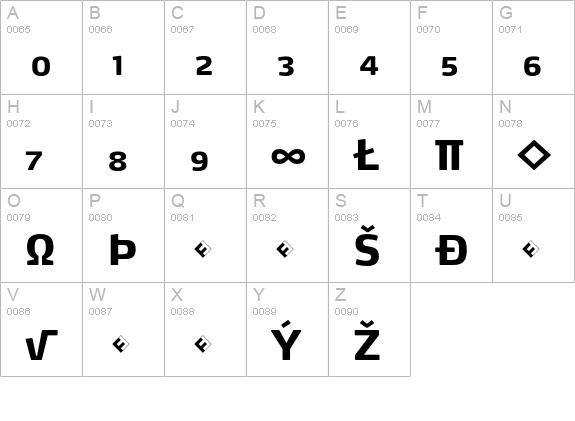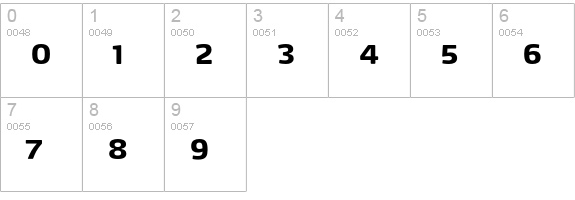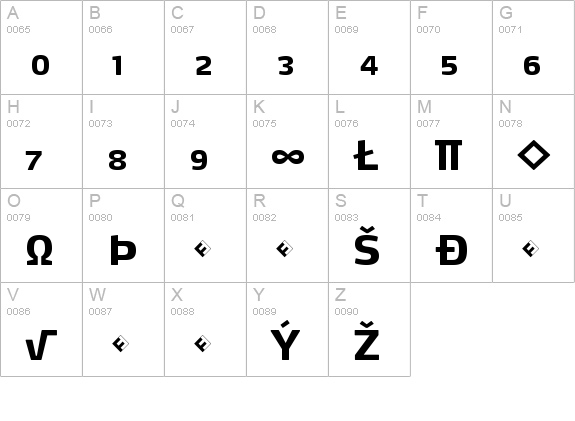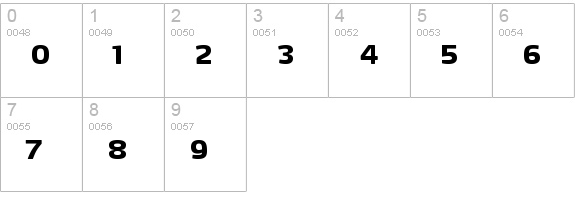
Max-ExtraBoldExpert font is a bold and powerful typeface that demands attention and makes a statement. With its extra bold weight and expertly crafted design, this font is perfect for creating impactful headlines, logos, posters, and more. Its strong and commanding presence is sure to leave a lasting impression on any project. What makes Max-ExtraBoldExpert font truly stand out is that it is available for free download at FontsMarket.com. This means that you can easily access this high-quality font without any cost, making it a valuable addition to your font collection. Don't miss out on the opportunity to enhance your designs with the striking Max-ExtraBoldExpert font today!